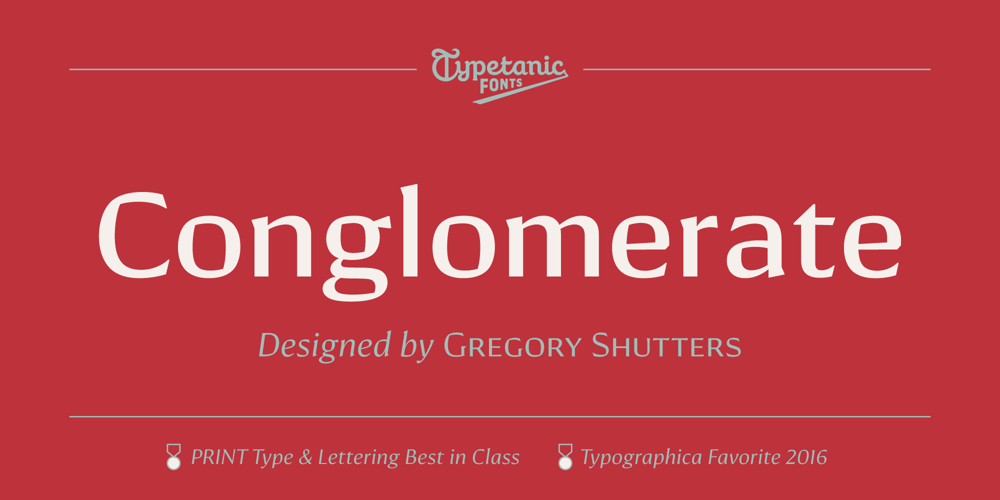
Conglomerate Font Family was designed by Gregory Shutters and published by Typetanic Fonts. Conglomerate contains 12 styles and family package options. Sans or serif? Square or rounded? Calligraphic or geometric? Conglomerate is both all and none of these things — a subtle yet unorthodox blend of typographic traits resulting in a clean, unique, and versatile font family with large, open counters for legibility in text yet crisp, sharp details that sparkle at display sizes. Conglomerate is sturdy but never stiff, crisp but never stark — perfect for projects that require a more contemporary feel than either a traditional serif or geometric sans might bring. Conglomerate received a PRINT Magazine Best in Class award, and was one of Typographica’s Favorite Typefaces of 2016.